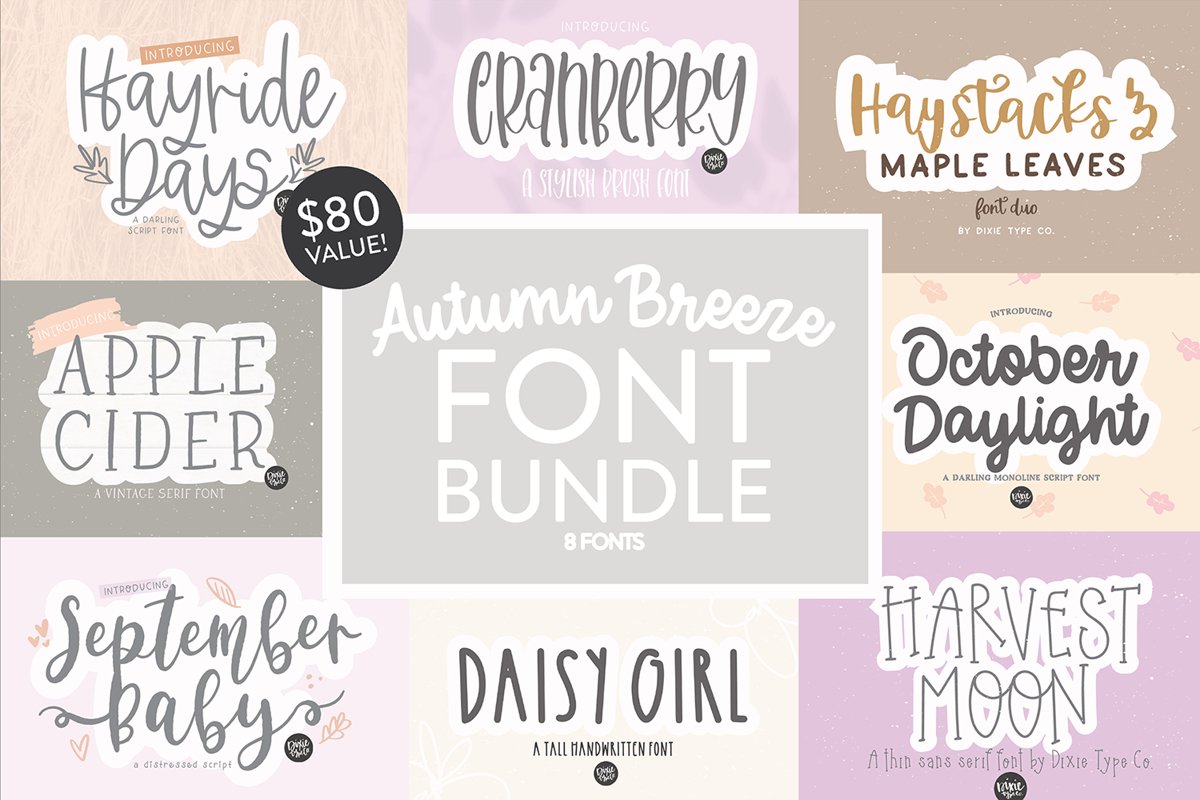
These fonts were all hand-lettered with a brush and ink, or iPad Pro.
The 8 fonts included are:
SEPTEMBER BABY
HAYRIDE DAYS
CRANBERRY
DAISY GIRL
HAYSTACKS & MAPLE LEAVES
OCTOBER DAYLIGHT
APPLE CIDER
HARVEST MOON